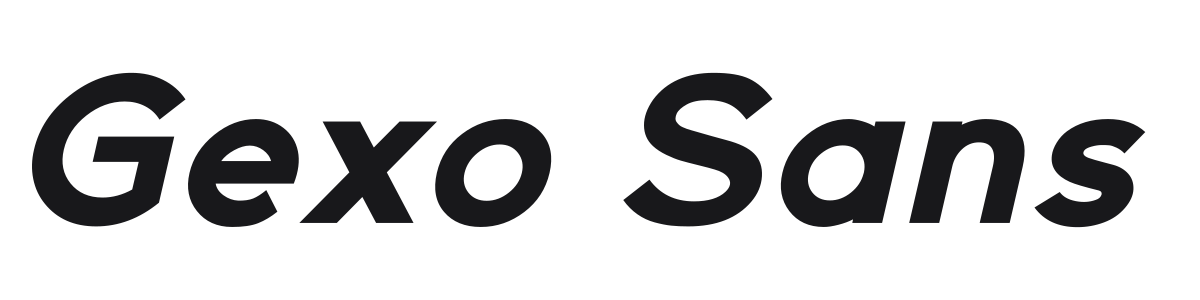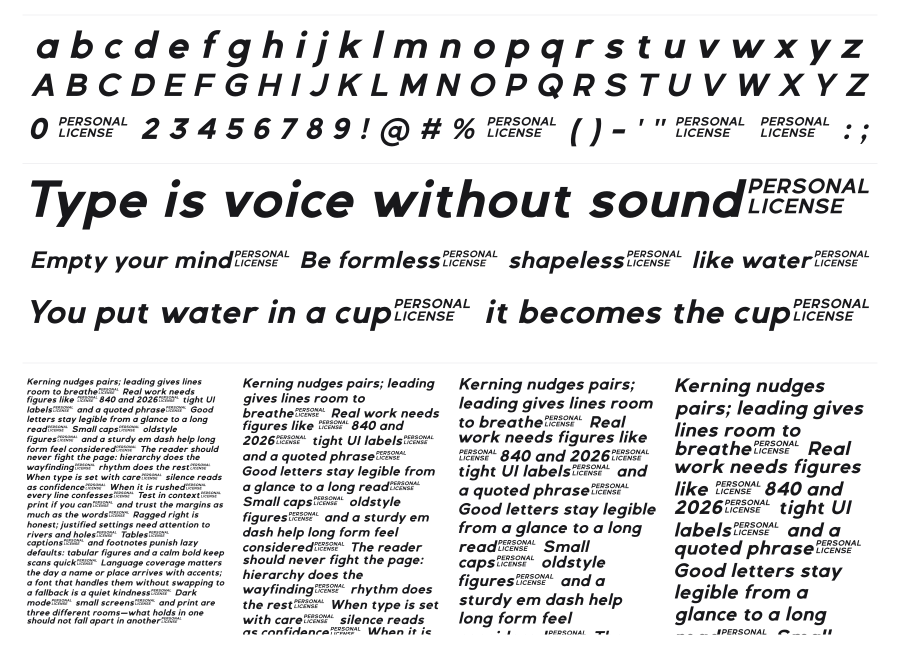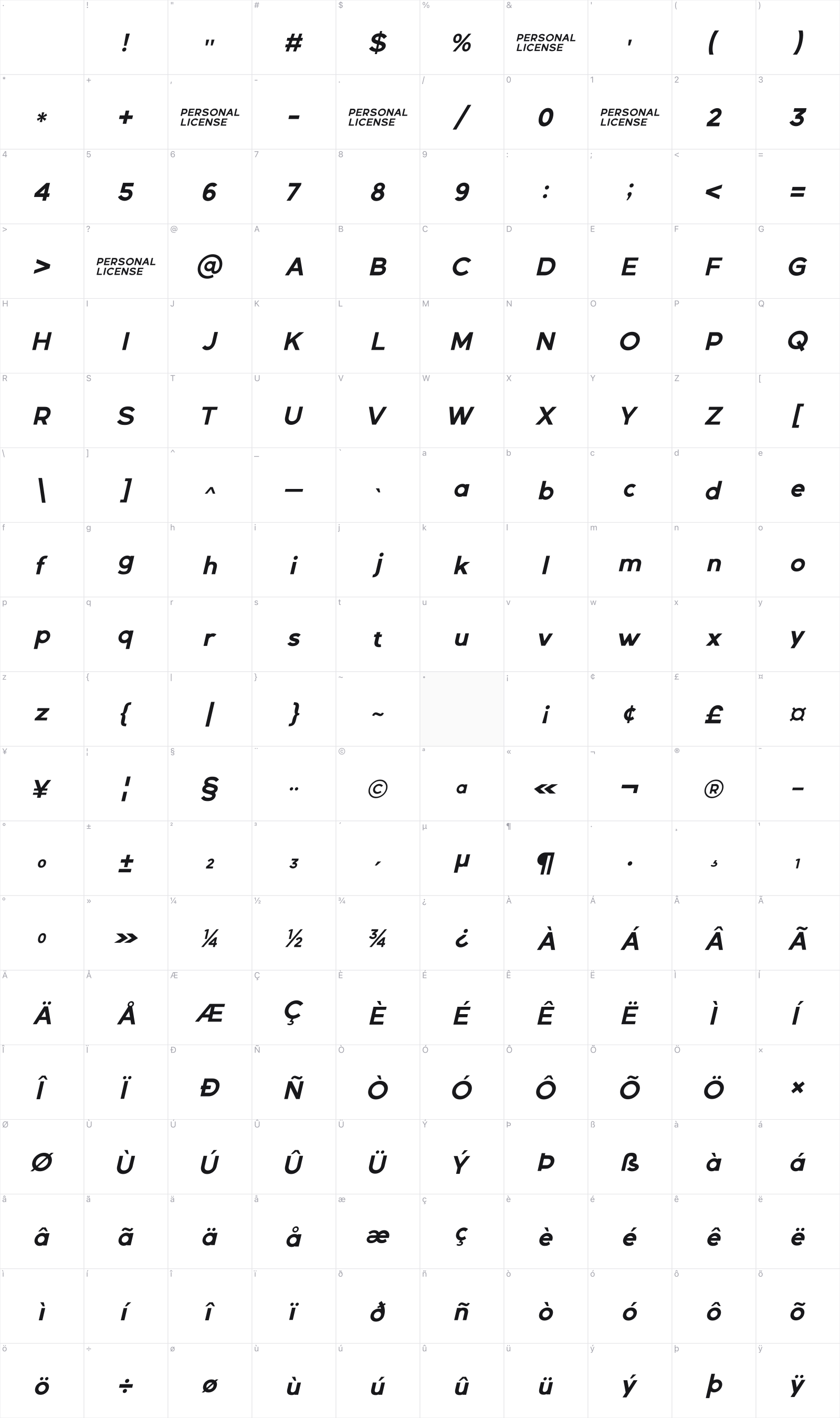
Gexo Sans
Gexo Sans is a bold geometric sans-serif with a confident oblique cut and wide, even proportions. The rounded terminals soften what could be a rigid geometric framework, landing somewhere between professional and approachable. It carries well in branding, headlines, and logotype applications where weight and clarity matter.